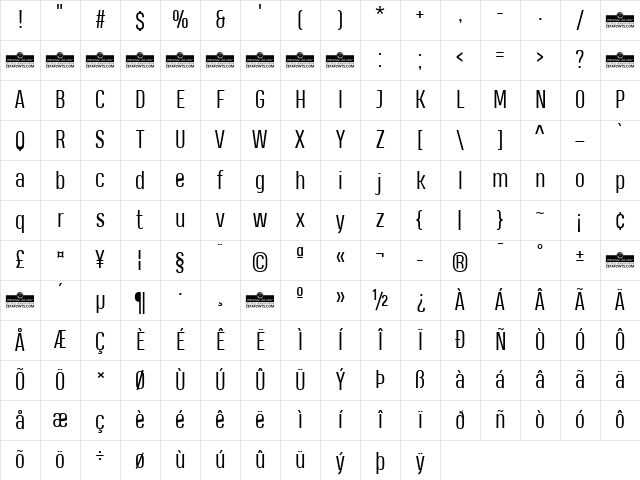
Heading Pro Trial Book Free Font
Heading Pro Trial Book
Foundry: Studio Kmzero & Zetafonts
Designer: Francesco Canovaro
Design Context for Heading Pro Trial
Heading Pro Trial is a composed and adaptable typeface that performs quietly and consistently across a wide range of design contexts.